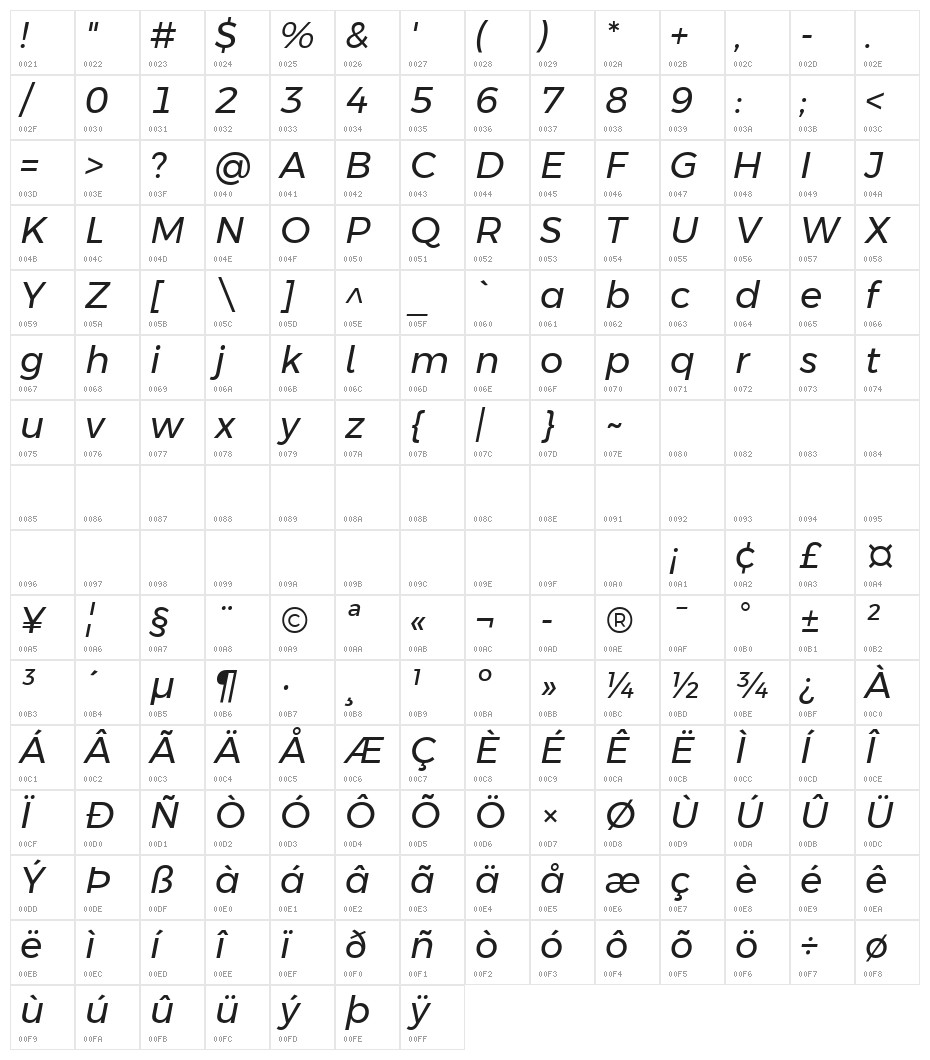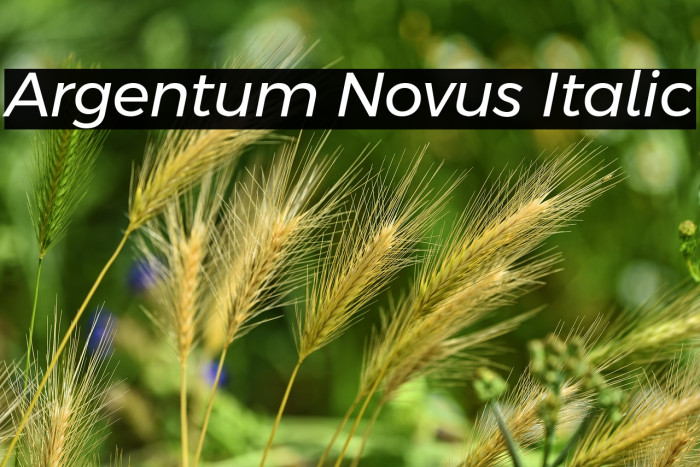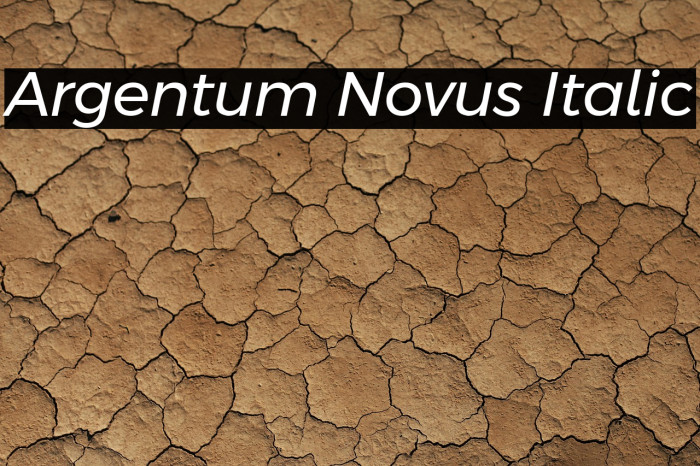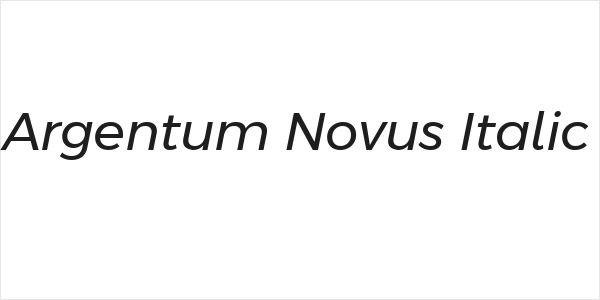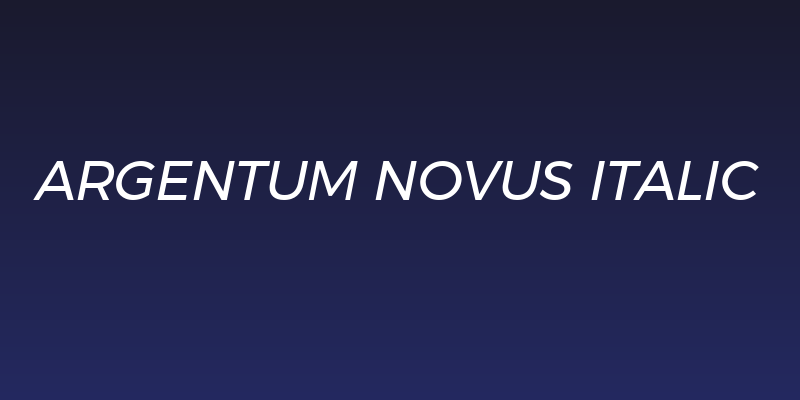
Argentum Novus Italic Font
Argentum Novus Italic Description
This font features a sleek, modern design with a subtle italic slant, giving it a dynamic and forward-moving appearance. The characters are clean and well-defined, with smooth curves and a uniform stroke width that conveys a sense of elegance and professionalism. The uppercase letters are bold and commanding, while the lowercase letters maintain a friendly and approachable feel. The numerals are clear and easy to read, making them suitable for a variety of applications. Special characters are thoughtfully designed to complement the overall aesthetic, ensuring consistency across all text elements.
Proposed ProjectsIdeal for branding, advertising, and digital media projects where a contemporary and professional look is desired.